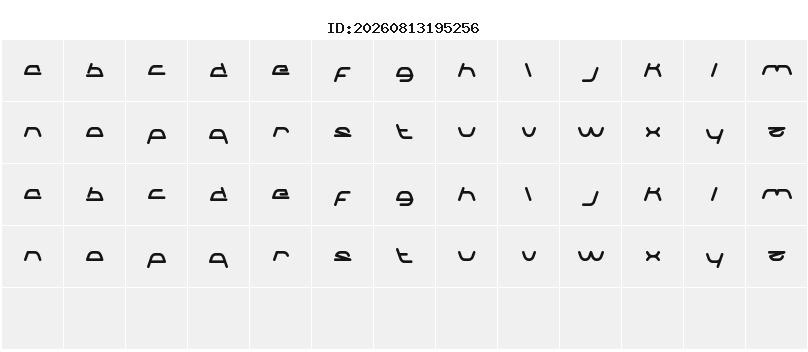
sneak peeks Preview
• Font Name: sneak peeks
• Font ID: sneak peeks:Version 1.00
• Full Font Name: sneak peeks
• Version: Version 1.00 March 19, 2012, initial release
• PostScript Name: sneakpeeks
About sneak peeks.ttf
sneak peeks.ttf is a modern, elegant sans-serif font designed for ultimate readability and visual harmony. Perfect for branding, headlines, web design, and print materials.